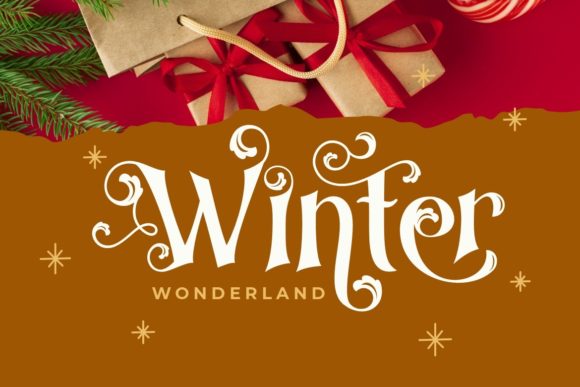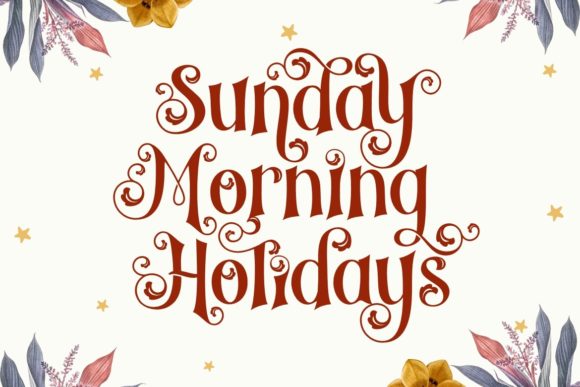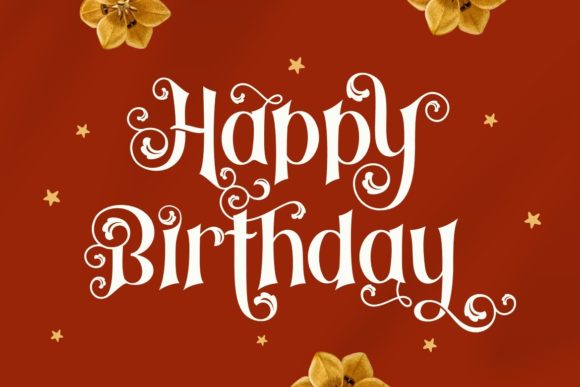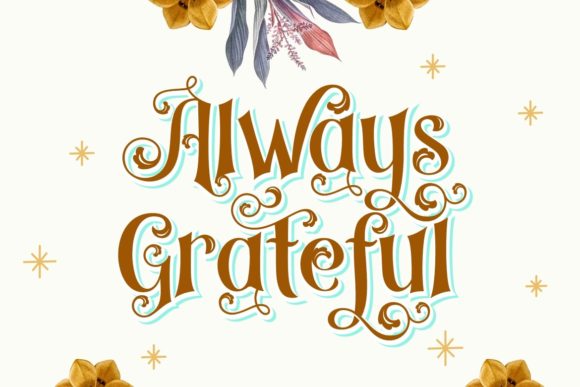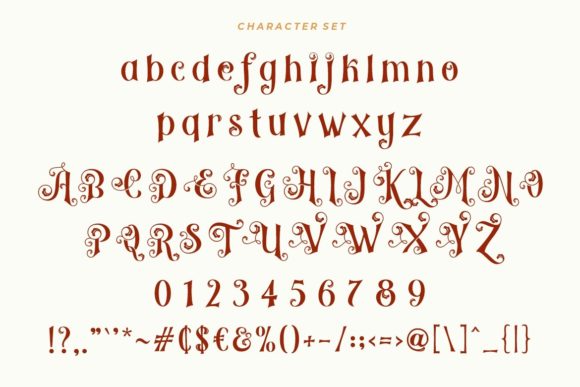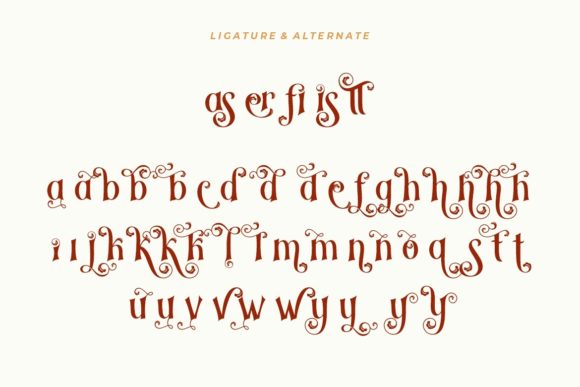
Introduction to Merlin Charlista Font
Have you ever found yourself staring at a blank page, trying to bring your creative vision to life? For designers, this moment can be both exhilarating and daunting. But what if you had the perfect tool to help you unlock your full potential? That’s where the enchanting Merlin Charlista Font comes in – a high-quality, decorative font that’s sure to add a touch of magic to any design project.
As a valuable resource for designers, the Merlin Charlista Font offers a wide range of creative possibilities. With its intricate swirls and curly feel, it’s perfect for adding a special touch to Christmas cards, wedding invitations, quotes, and more. Plus, its transparent background makes it easy to use in a variety of design contexts. Whether you’re working on a free download or a paid project, this font is sure to elevate your design to the next level.
Key Features of Merlin Charlista Font
- Merlin Charlista Font features a transparent background, allowing for seamless integration into various design elements.
- Unique characteristics include its elegant and sophisticated design, making it perfect for high-end creative projects.
Honest Review: Merlin Charlista Font
I recently stumbled upon the Merlin Charlista Font and I’m excited to share my thoughts on this design resource.
What works well: ✨ The font is truly high-quality and perfect for any creative project that requires a unique touch. I love the elegant and modern design, and the fact that it’s available for free download is a huge plus. The font also features a transparent background, which makes it easy to customize and combine with other design elements.
What I didn’t like: ⚠️ While the font is a great addition to any design collection, I did notice that it’s not as versatile as some other fonts. It’s best suited for titles and headings, and may not be the best choice for body text.
Overall, I’m really impressed with the Merlin Charlista Font and I think it’s a great resource for designers. The free download option makes it accessible to everyone, and the high-quality design is sure to elevate any creative project.
- Perfect for titles and headings
- Not suitable for body text
The Merlin Charlista Font is a high-quality design resource ideal for creative projects. It features a unique and elegant style, perfect for adding a touch of sophistication to your designs.
To get the most out of the Merlin Charlista Font, use it in conjunction with a transparent background. This allows the font’s unique style to take center stage and adds a touch of sophistication to your designs.
The Merlin Charlista Font is perfect for a variety of creative projects, including:
- Wedding invitations
- Branding materials
- Editorial designs
Comparison: While Merlin Charlista Font has a more unique and artistic flair, Montserrat Font is more straightforward and versatile, making it a better choice for projects requiring a clear and modern aesthetic.